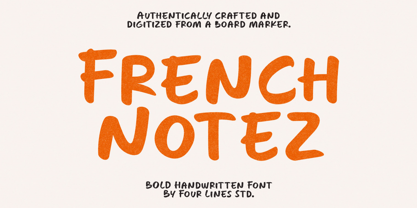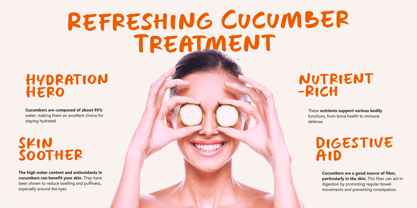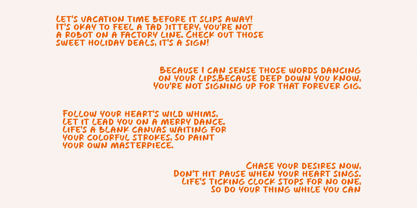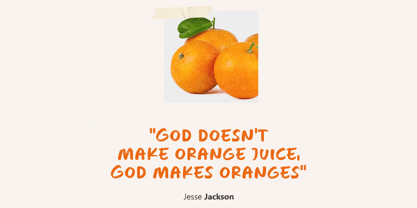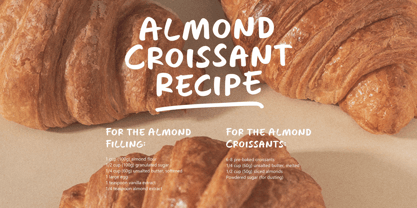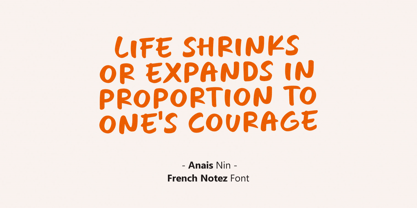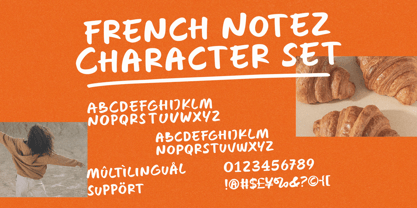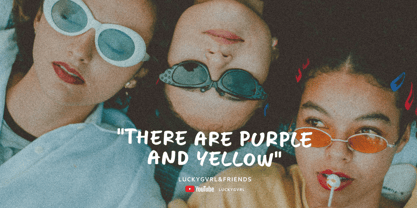
French Notez
by Four Lines Std
The French Notez Font Family was designed by Zain Fahroni and published by Four Lines Std. French Notez contains 1 styles.
This handwritten font, influenced by the striking strokes of a marker, adds a modern flair to your creative endeavors. Its relaxed yet bold design makes it the perfect choice for brands, social media, and promotional materials that aim to make a statement.
Four Lines Studio is a graphic design studio founded in 2019 by Zain Fahroni in Bandung City, Indonesia. The studio's name is inspired by a friendship story that is close to the founder's heart. Our work is heavily influenced by this friendship, which has given birth to an identity that is associated with fun, playful, and groovy elements. A key area for the studio is typography, with a specific focus on developing fonts that emphasize minimalism and versatility.